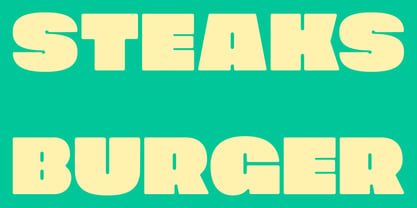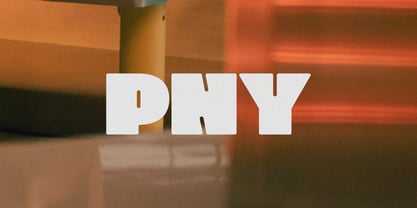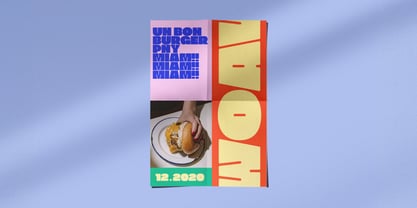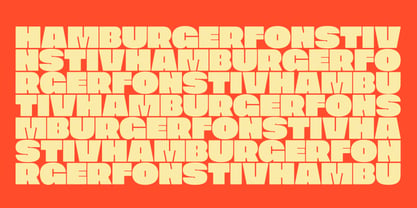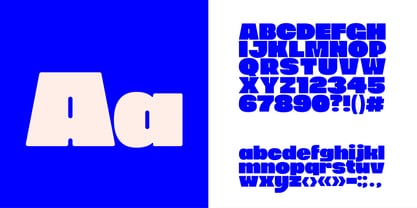
PNY Sans
by Clément Coste
The PNY Sans Font Family was designed by Clément Coste and published by Clément Coste. PNY Sans contains 1 styles.
This is a chunky, funky, and packed with character. Its extra-bold, rounded forms give it a playful personality, while the geometric consistency keeps it clean and professional. Whether you're branding a burger joint, crafting a nostalgic poster, or designing loud, lovable headlines, this font serves up flavor in every letter.